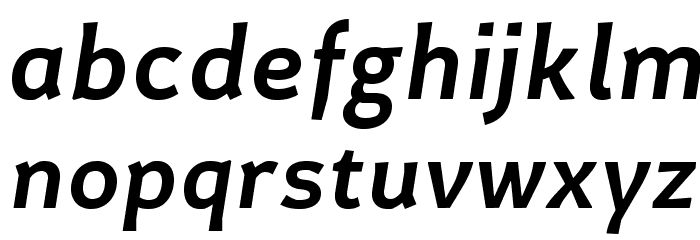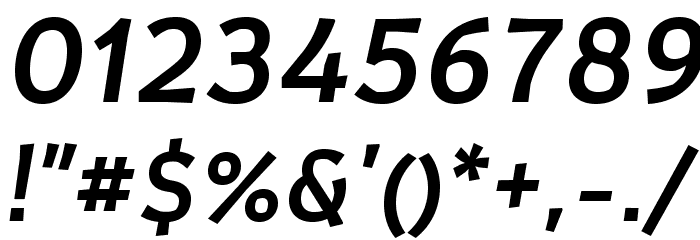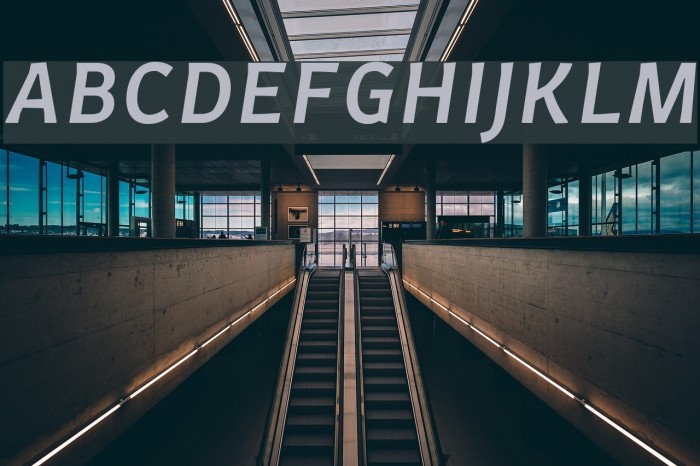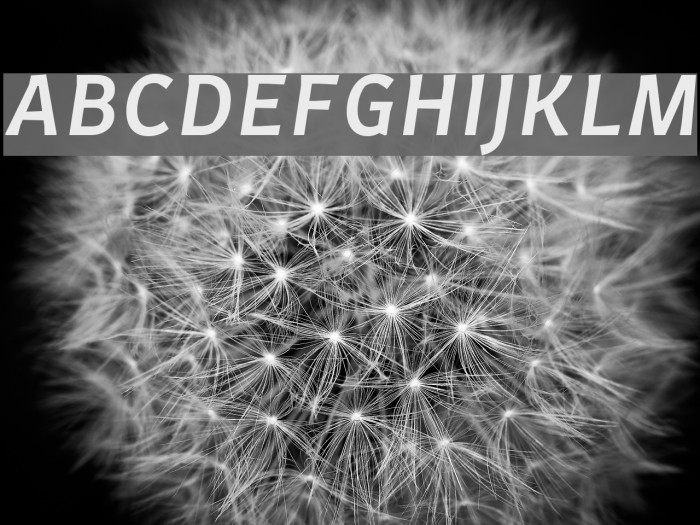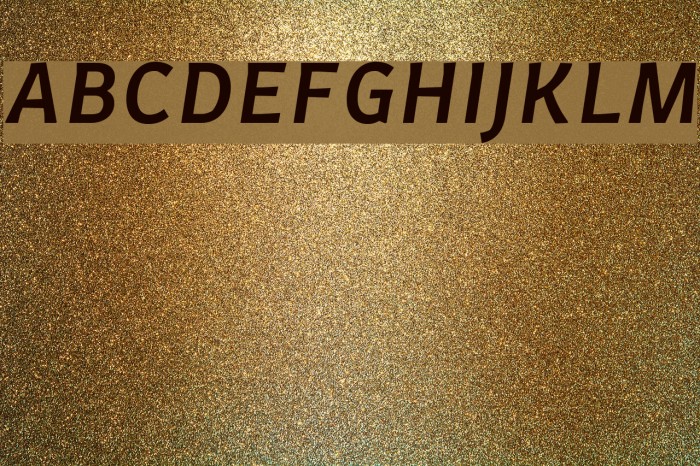
CertaSans-MediumItalic Font
This font features a clean and modern sans-serif style with a slight italic slant, giving it a dynamic and forward-moving appearance. The characters are well-proportioned, with a consistent stroke width that maintains readability across various sizes. The uppercase letters are bold and assertive, while the lowercase letters offer a softer, more approachable feel. Numbers and special characters are designed with clarity in mind, ensuring they stand out in any context. The overall design is versatile, making it suitable for both digital and print media.
A modern sans-serif font with an italic slant, offering clarity and versatility.
- Proposed Projects: Ideal for branding, advertising, web design, and editorial layouts.